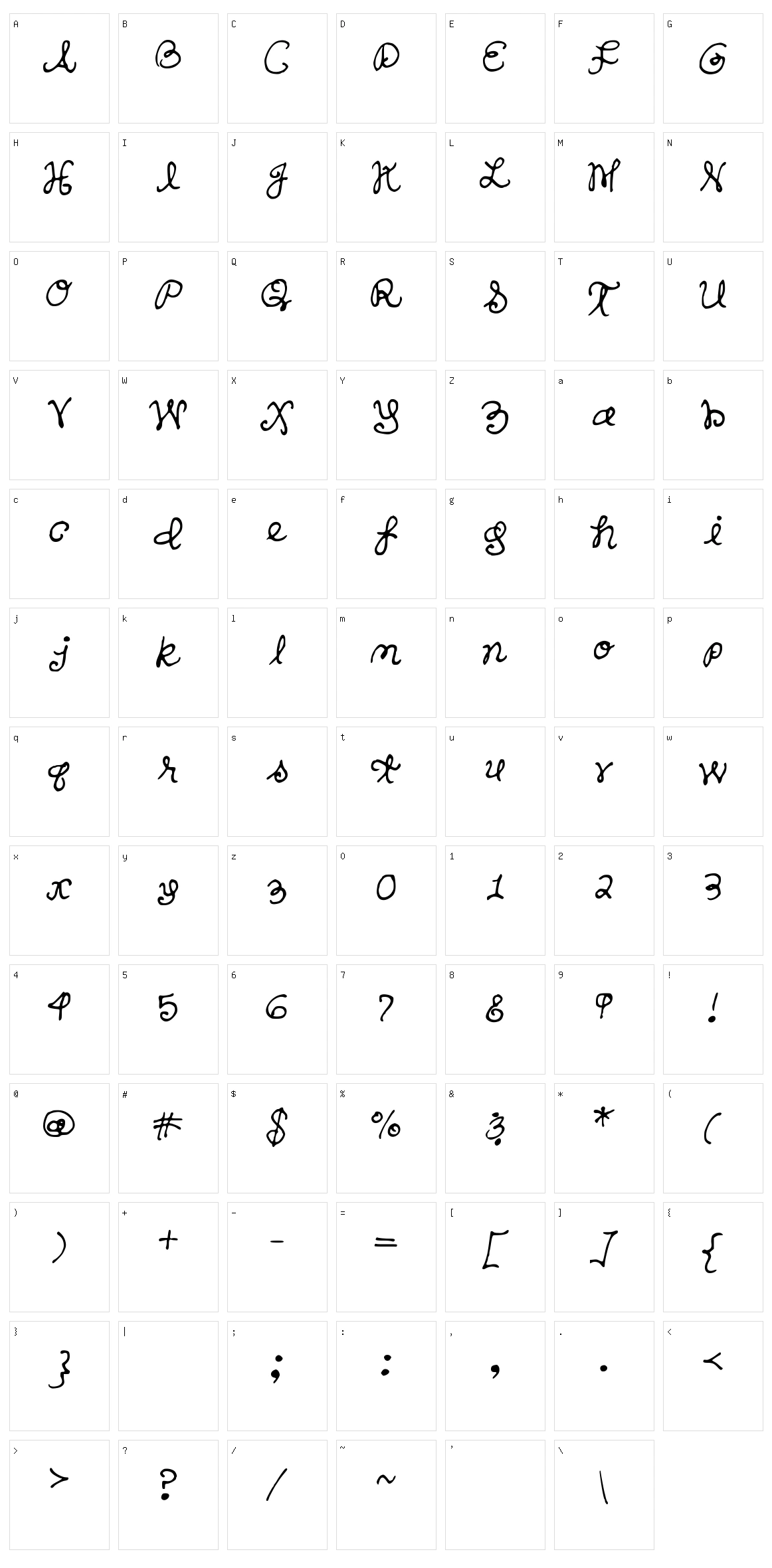
The free font Sanders Hand is carefully designed by brittanelyse, showcasing a thoughtful balance of creativity and usability and falls under the Script font style. When you download the ZIP file, it contains only 16.64 KB of font files, making it lightweight and quick to download. Please review the license details below to understand permitted usage and distribution rights. If license information is not available, we recommend using this font for personal projects only or contacting the author directly for commercial usage permissions.